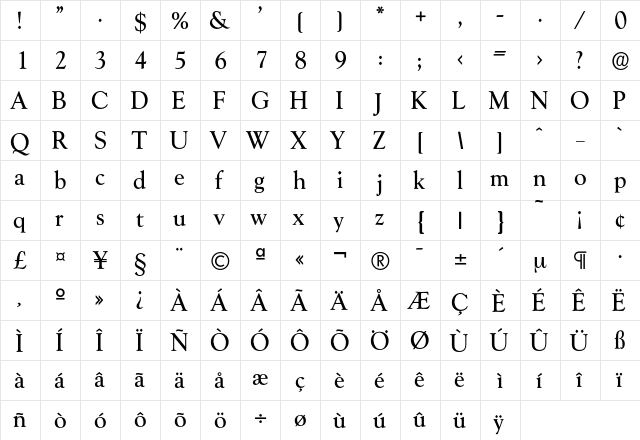
Goudx-Medium Regular
Design Context for Goudx-Medium Typeface
Goudx-Medium takes a measured approach to typography — its balanced proportions and neutral character make it a reliable workhorse for both digital and print work.